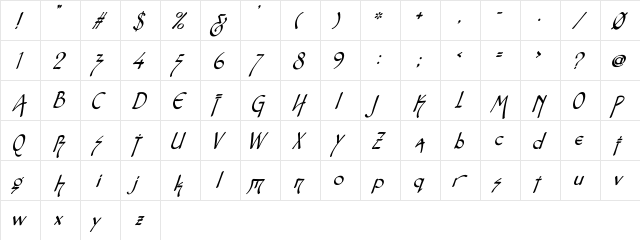
Snotmaster V Italic
Design Context for Snotmaster V Typeface
Snotmaster V is a composed and adaptable typeface that performs quietly and consistently across a wide range of design contexts. The dynamic lean of this cut emphasises speed and emphasis in any layout.
Pro Tip: Use Snotmaster V for emphasis, pull quotes, and subheadings where its slanted energy can add rhythm to the layout.